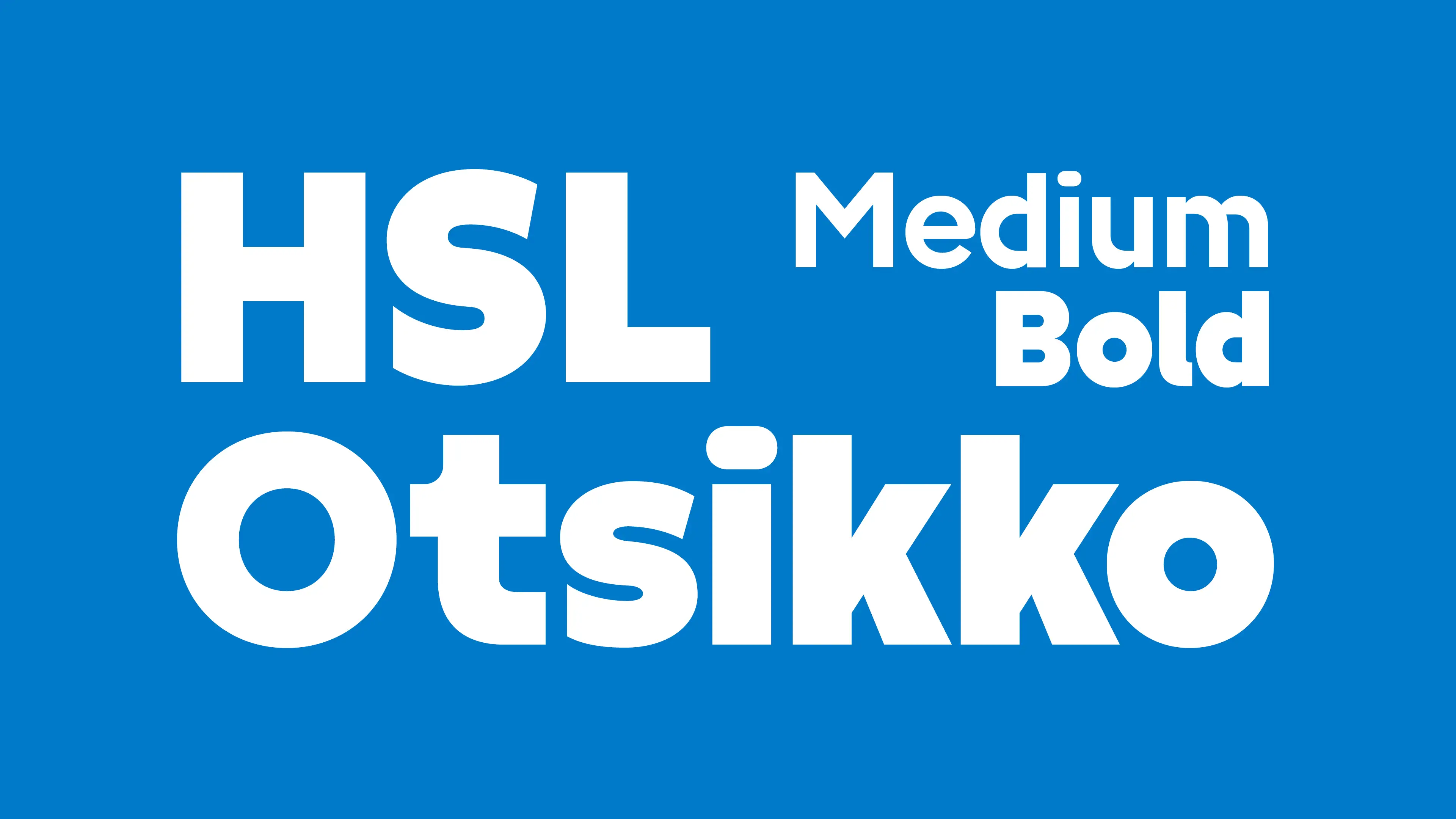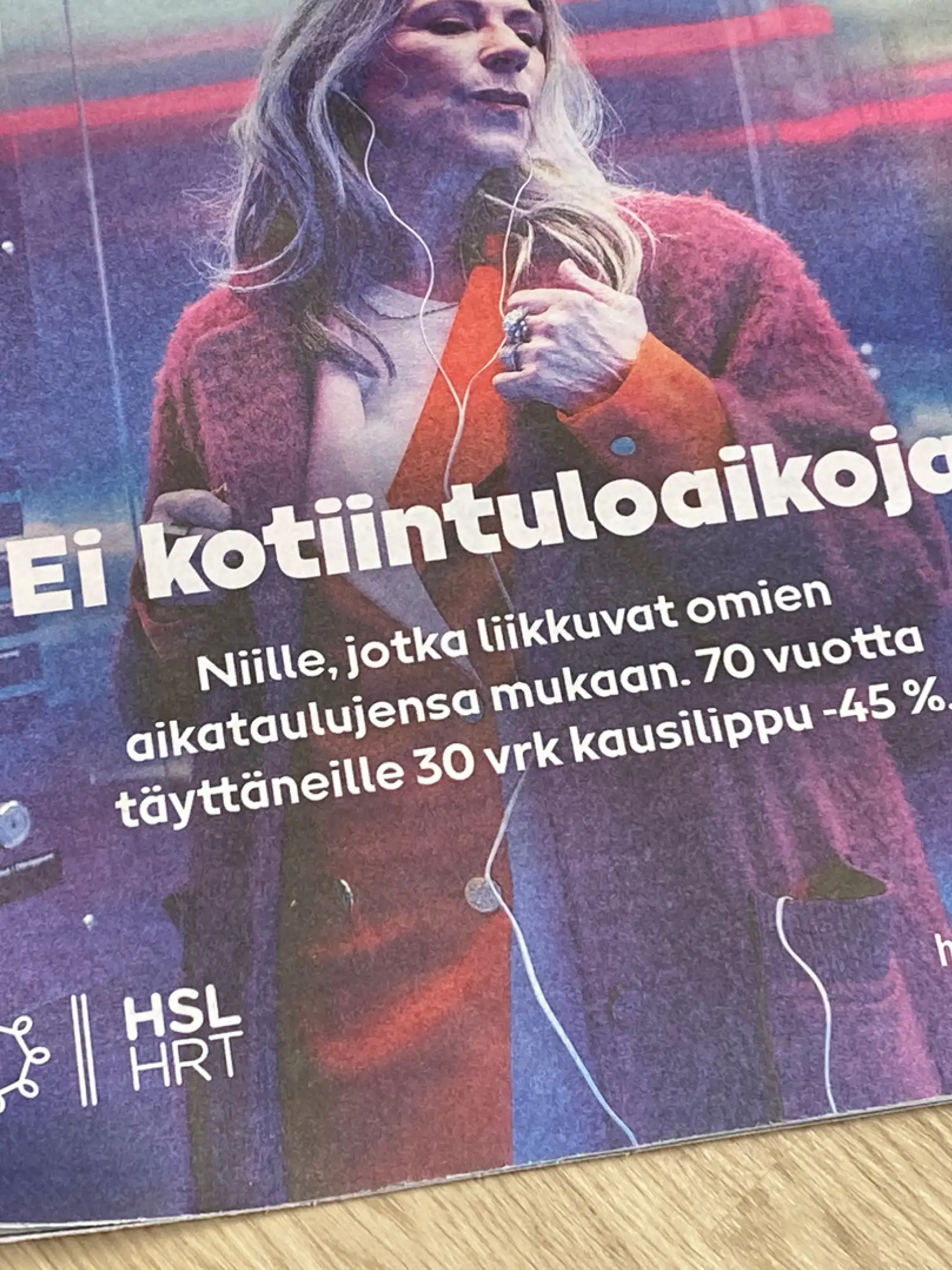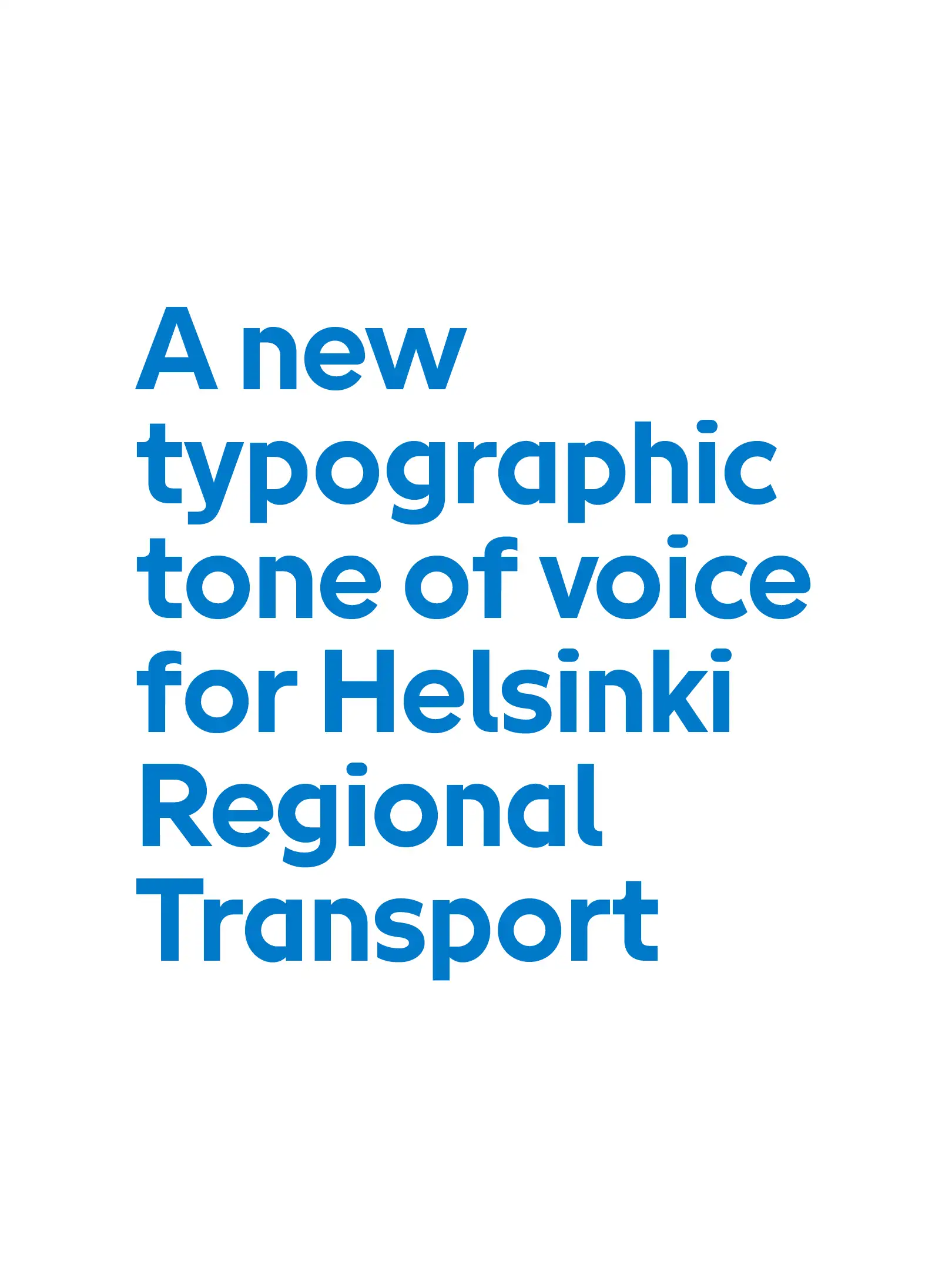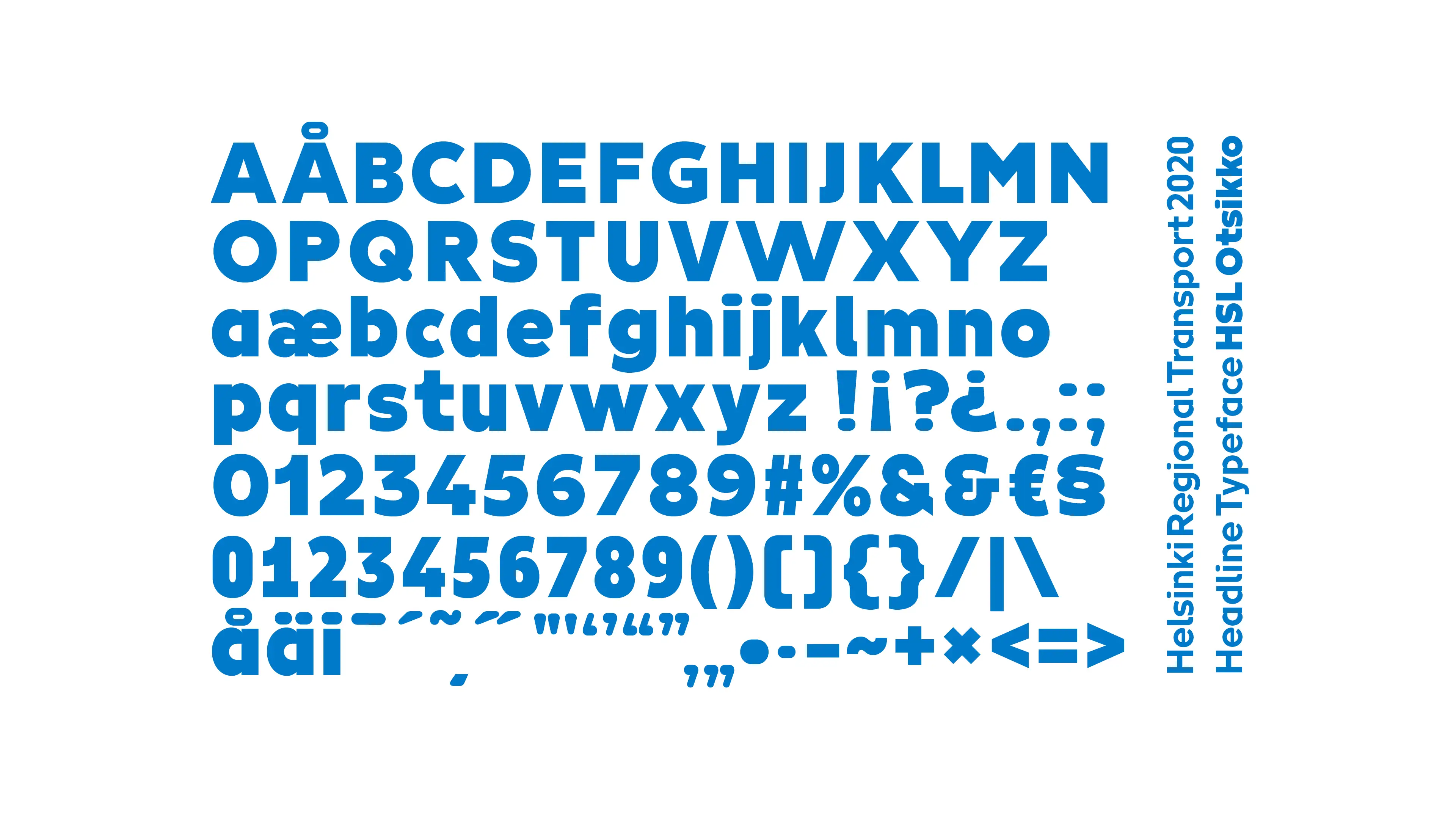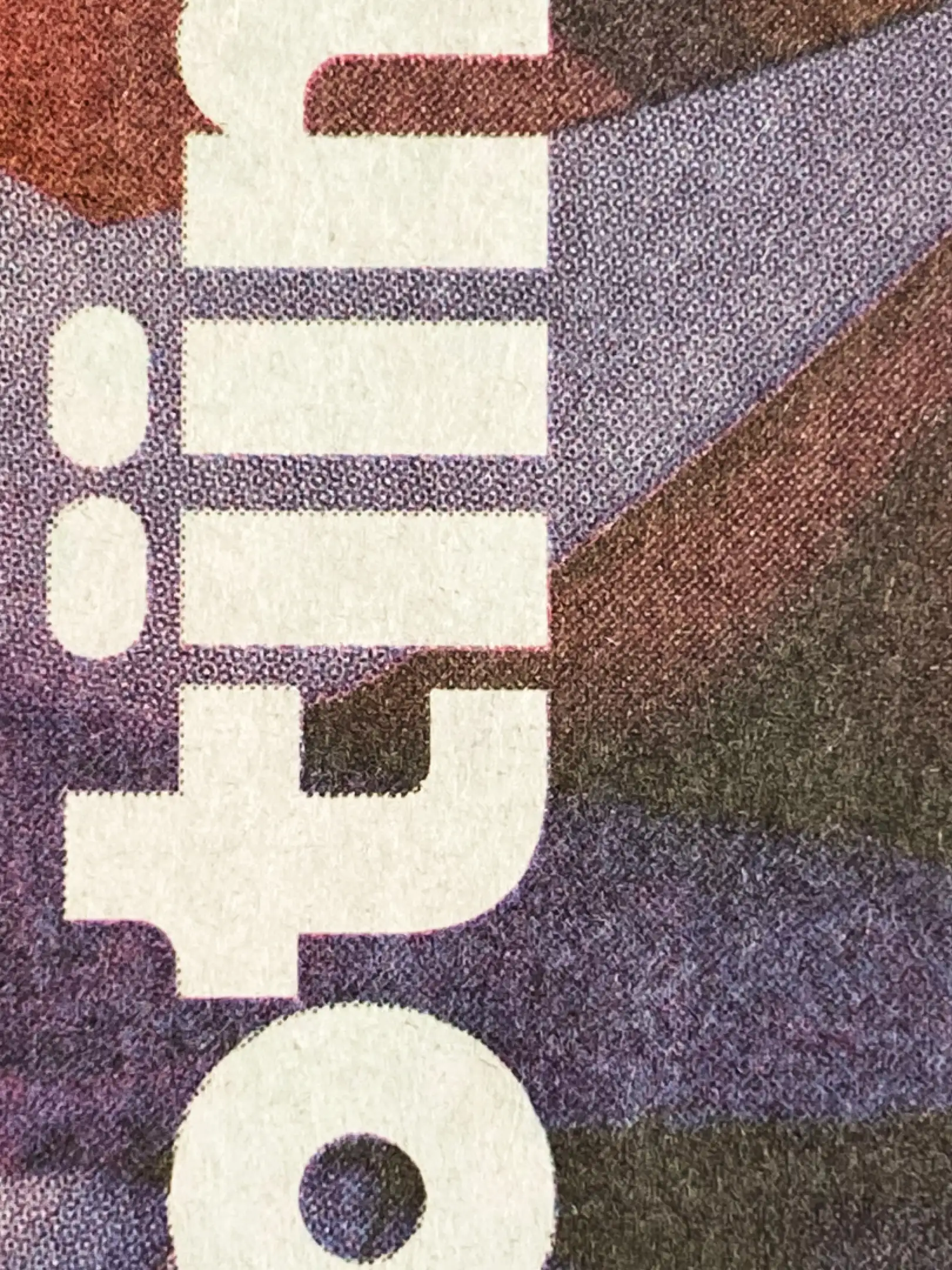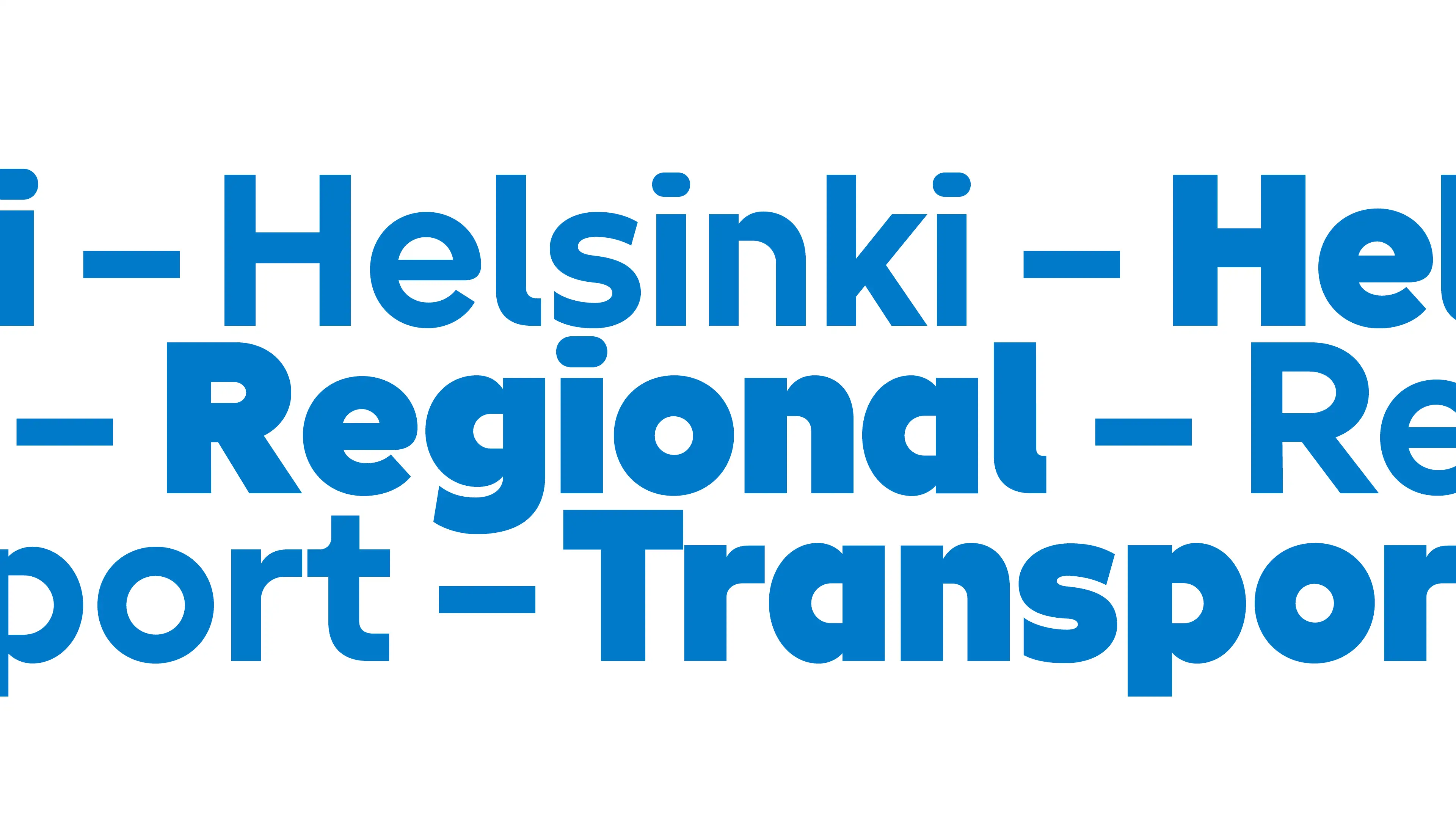
Helsinki Regional Transport commissioned branding agency
Kokoro & Moi to complete their typographic palette with a typeface especially made for headlines. Niklas Ekholm already had almost a decade of experience with HSL as art Director in Kokoro & Moi, so it was a natural continuation for Helsinki Type Studio to finalise the visual concepts.
Type Design
Niklas Ekholm, Juho Hiilivirta
Branding Agency
Kokoro & Moi
Client
Helsinki Regional Transport